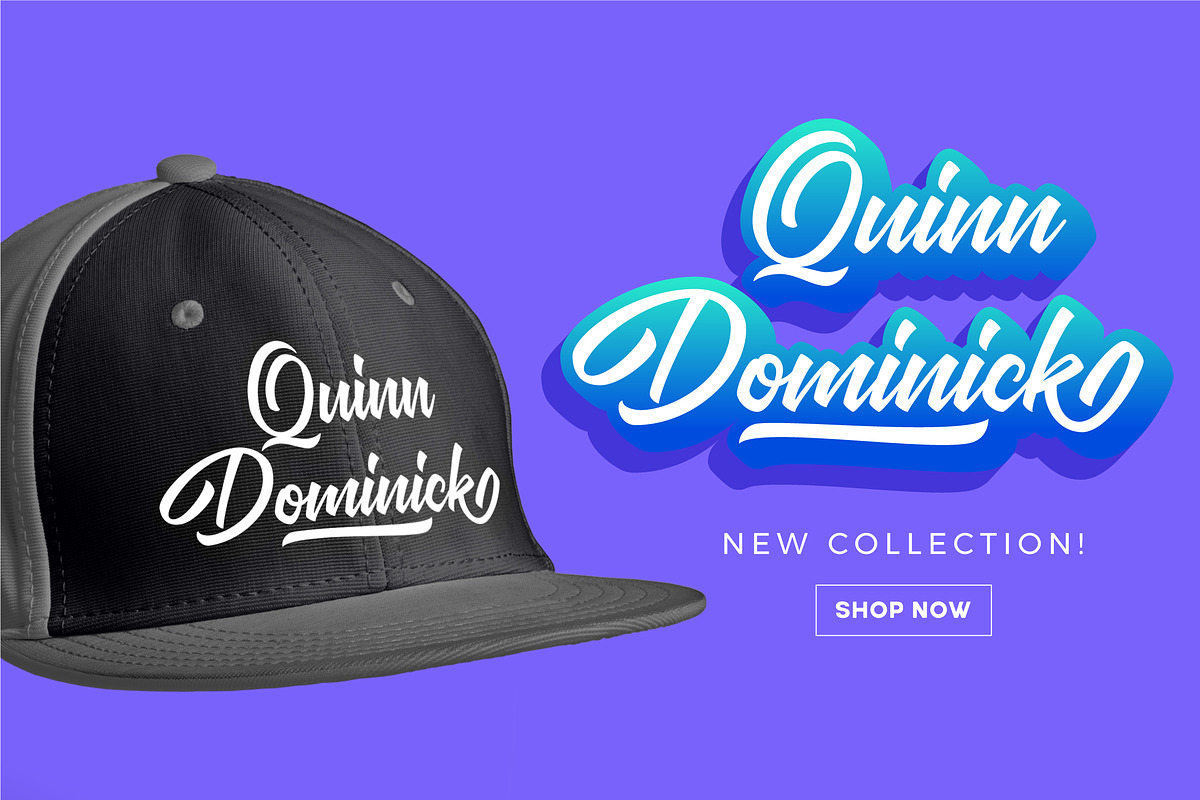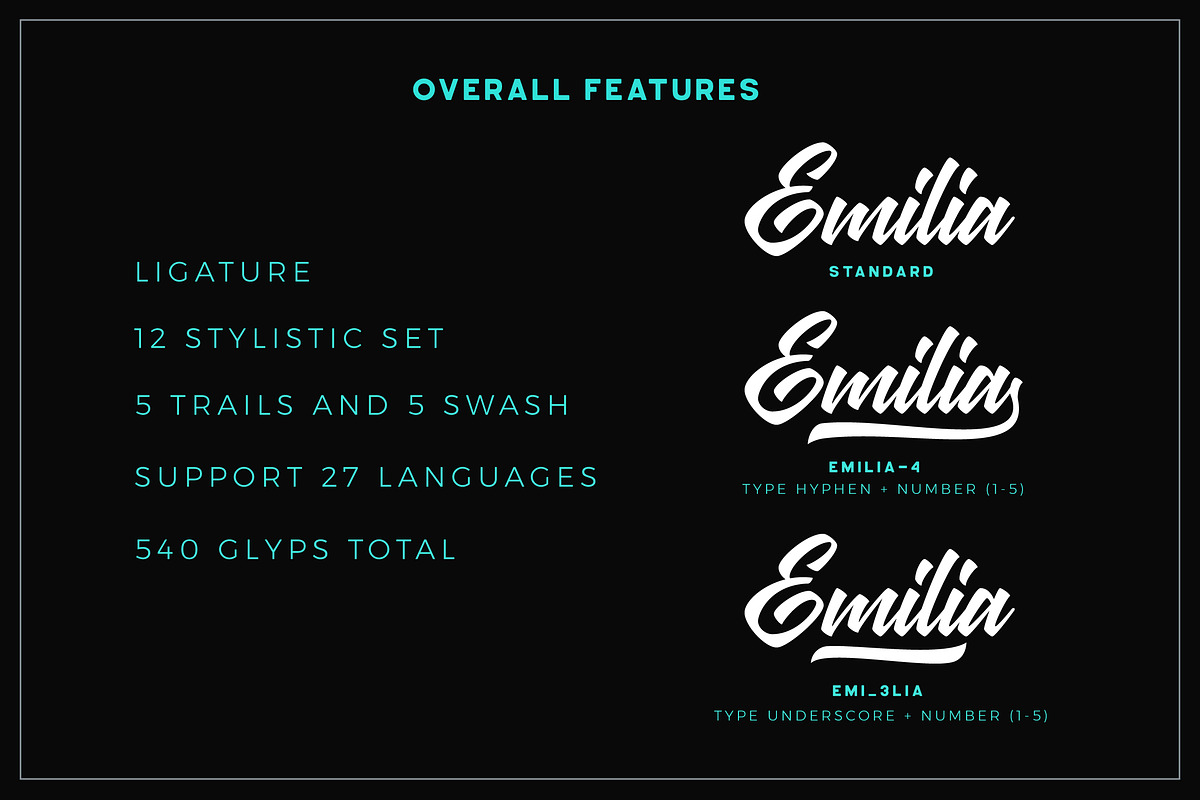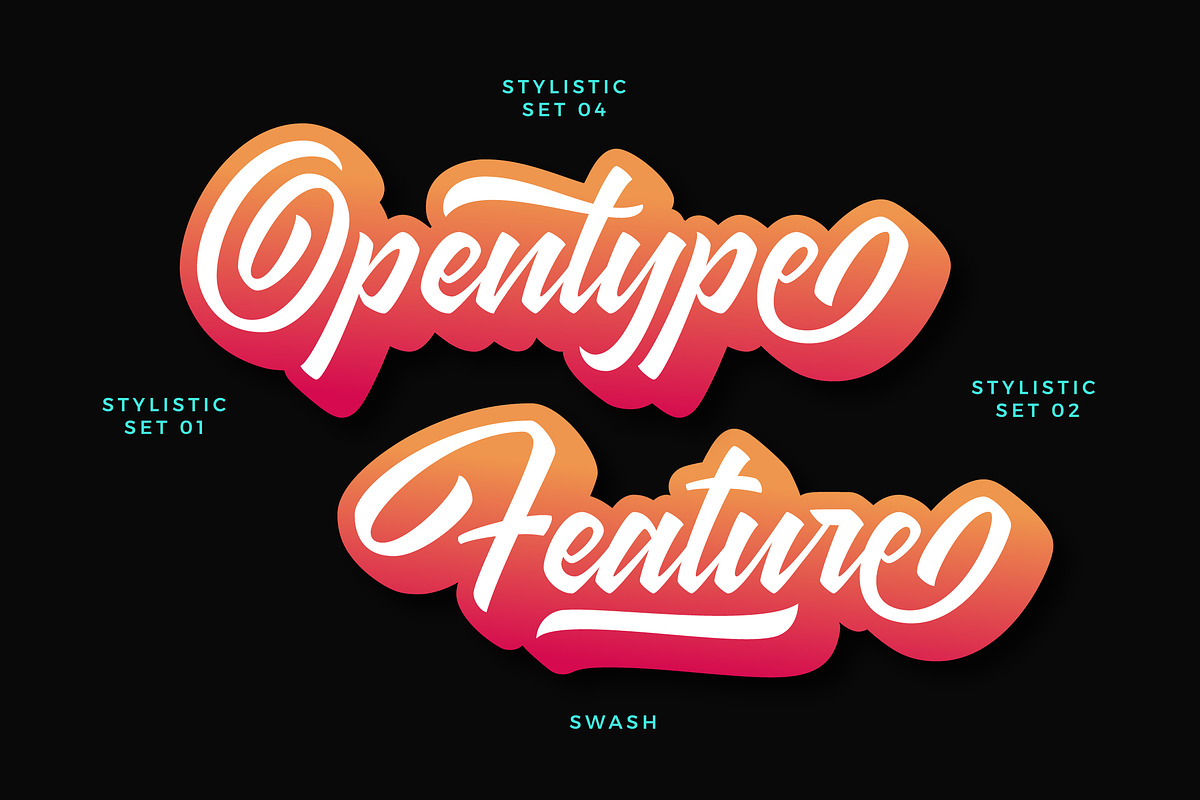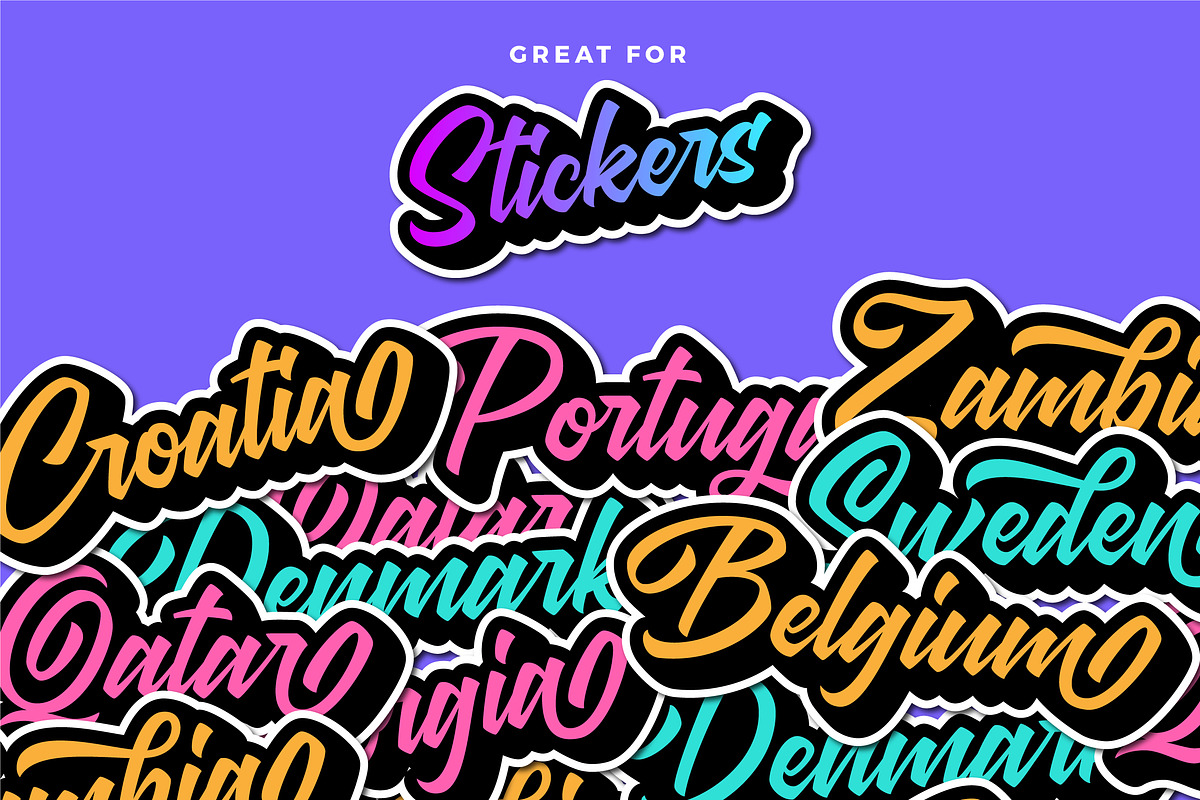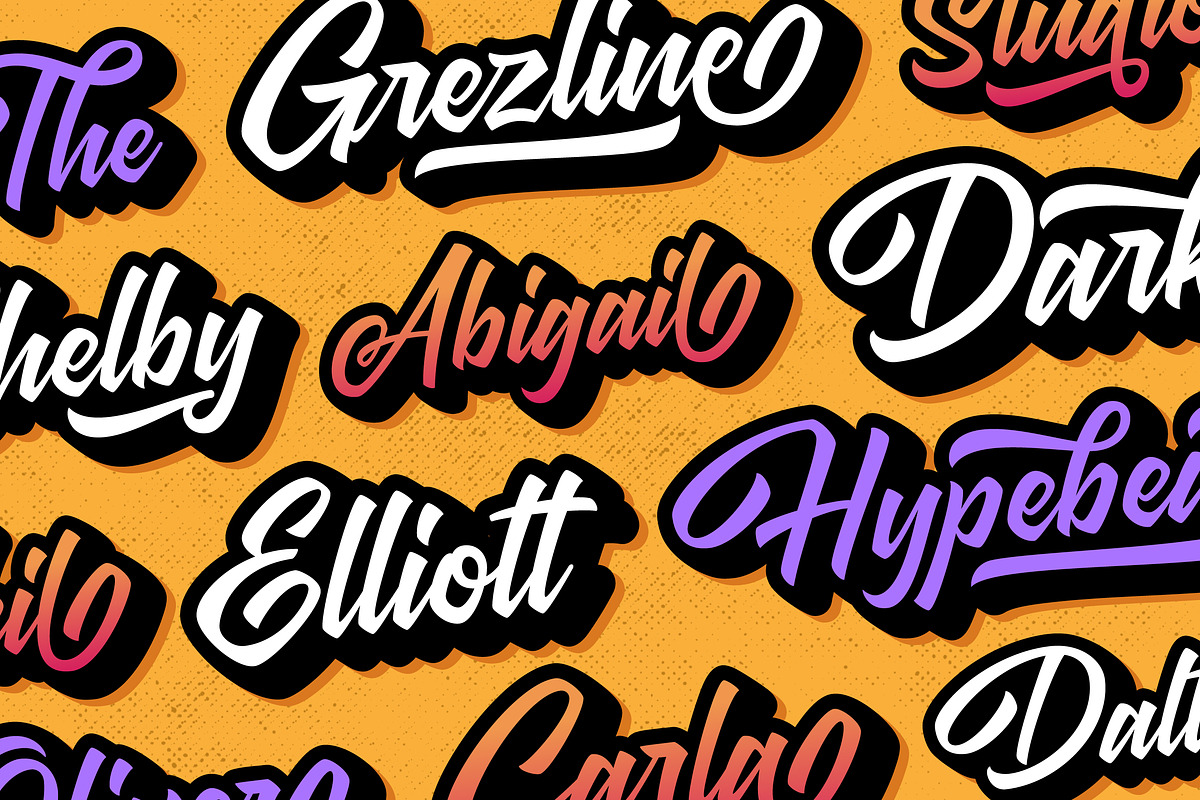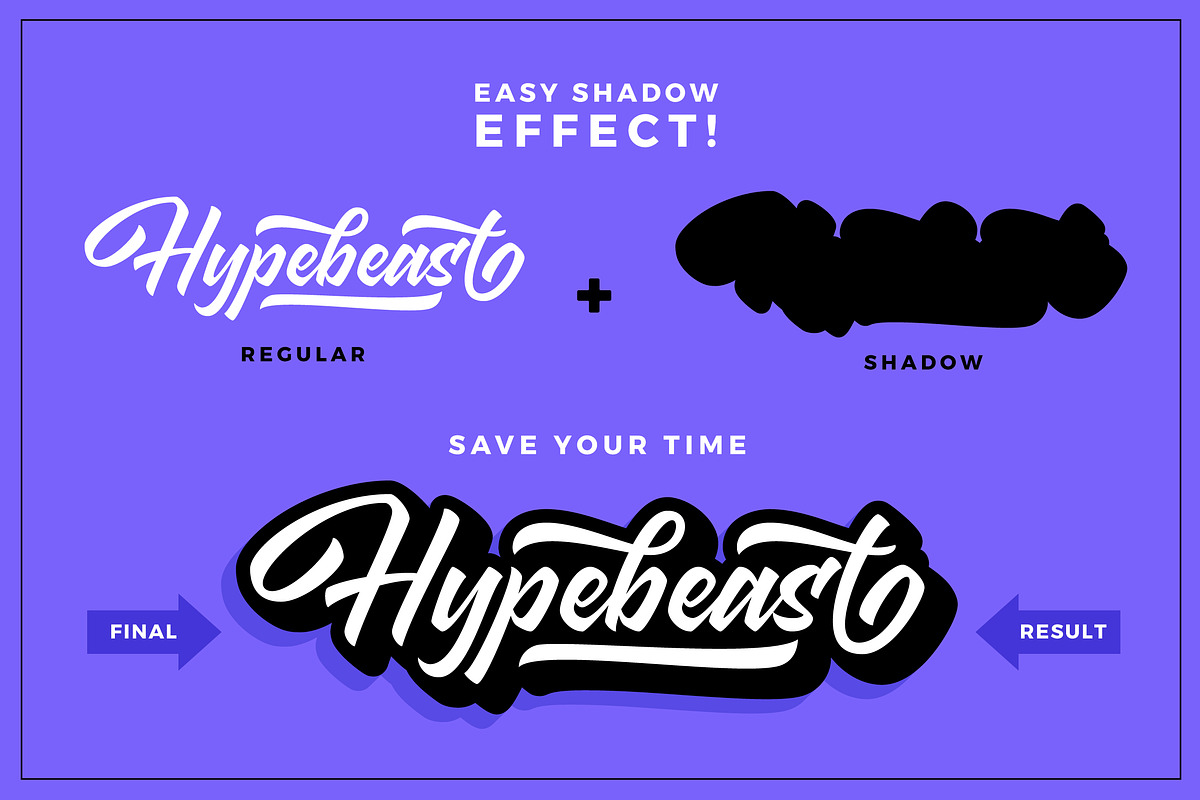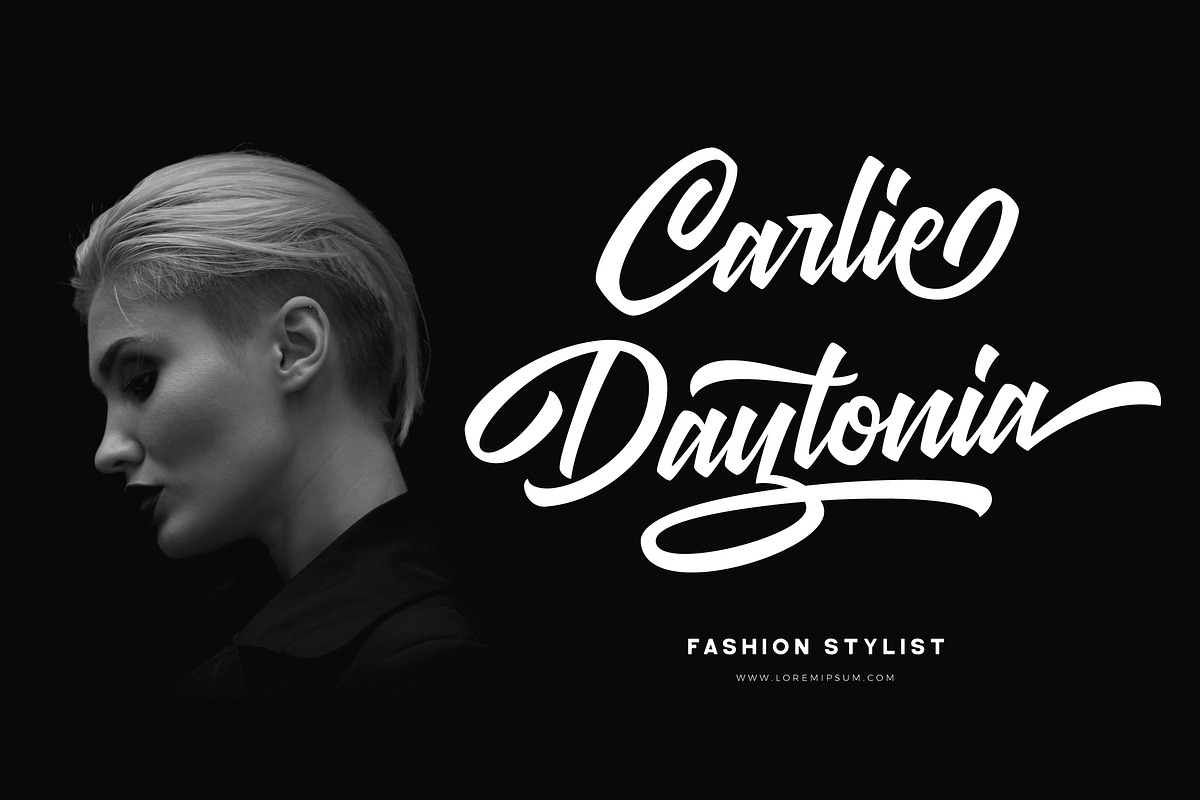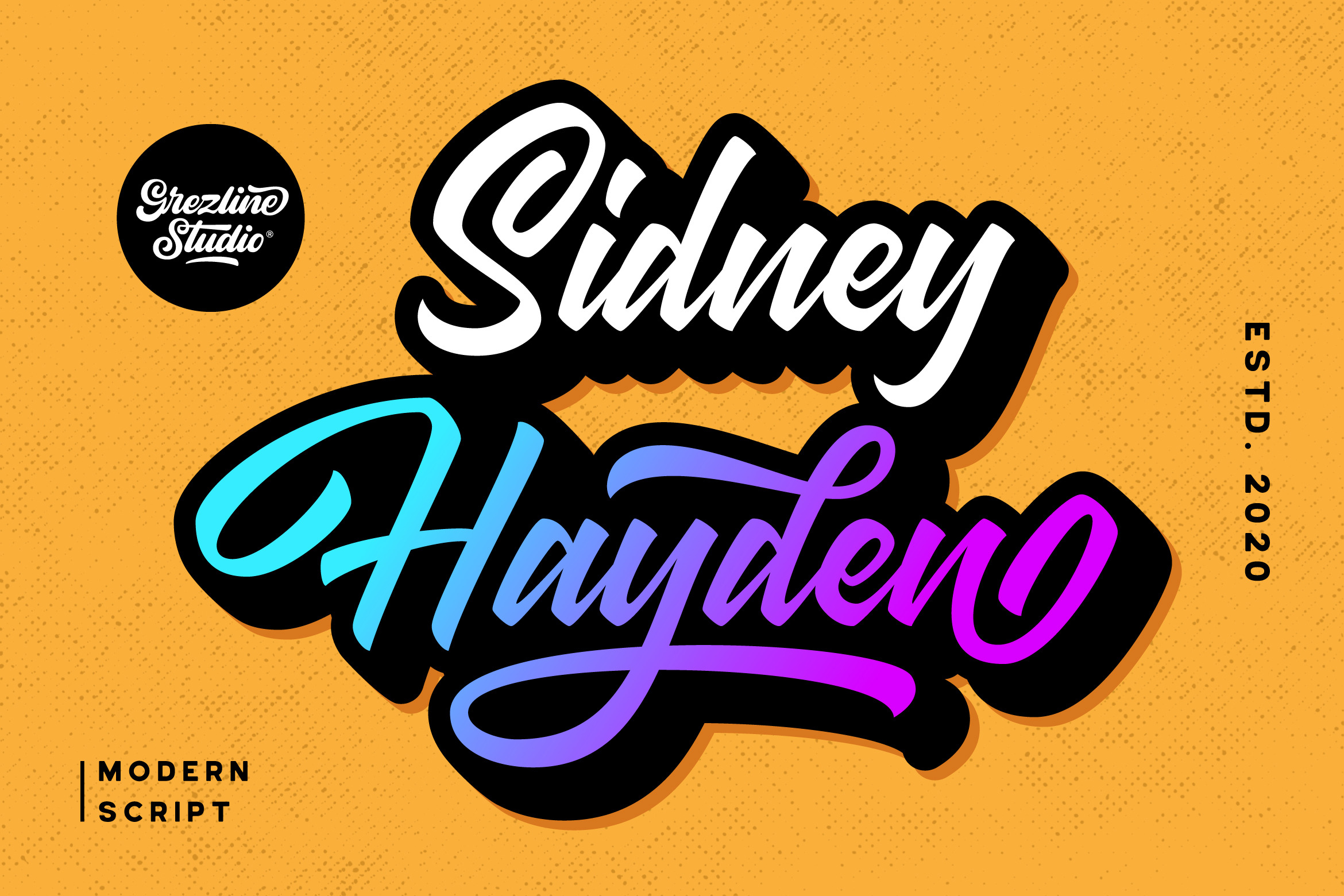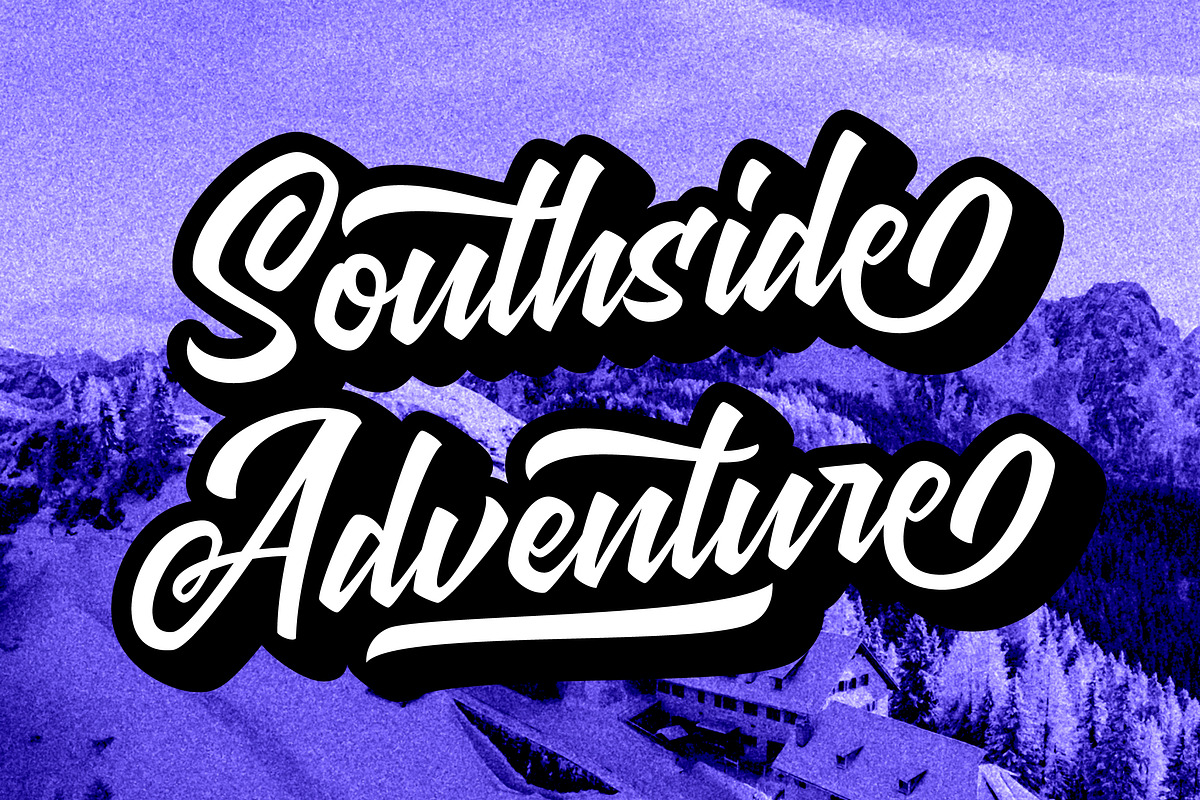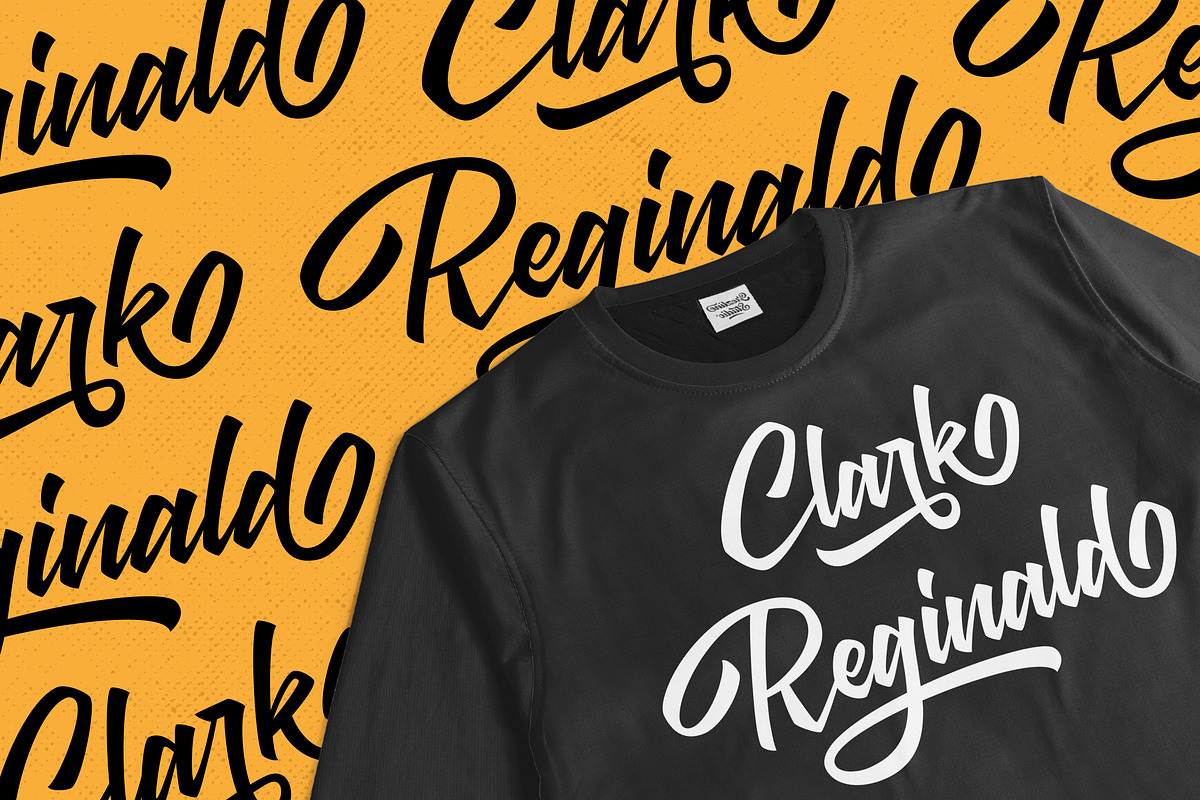
Sidney Hayden - Modern Script Font
Sidney Hayden is a brand new modern script font that comes with a neat and dynamic looks. Sidney Hayden is perfect use for a logotype, typography design, product packaging, quotes, t-shirt design, label poster, headings, letterhead, cutting sticker, hot stamping, signage,and anything that need modern taste. This font is very easy to use, you can even mix and pair it with other fonts to provide a fresh and authentic looks to your design projects.
- A lot of Alternates ( With a Total of 540+ Glyphs )
- Multilingual Language